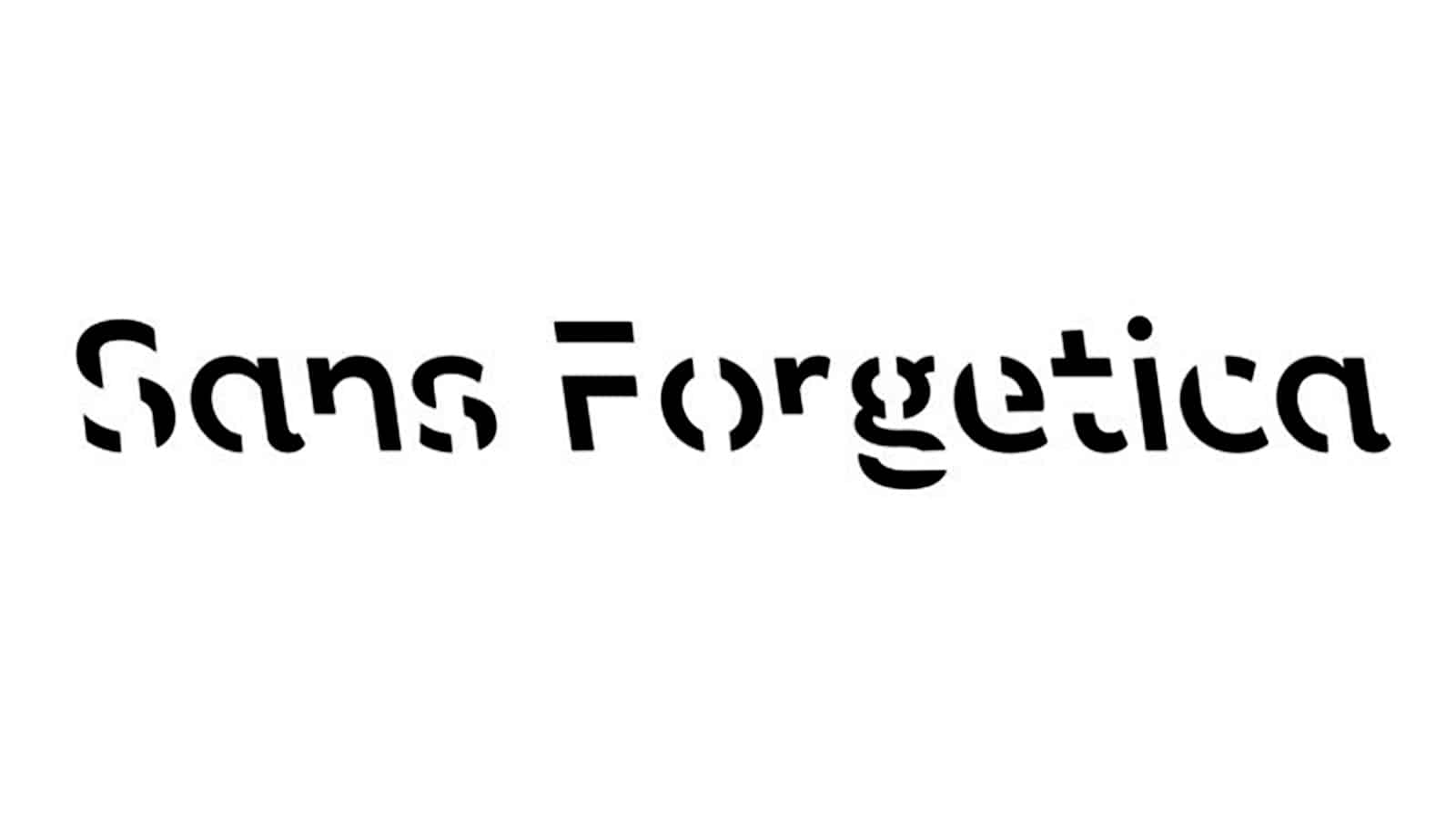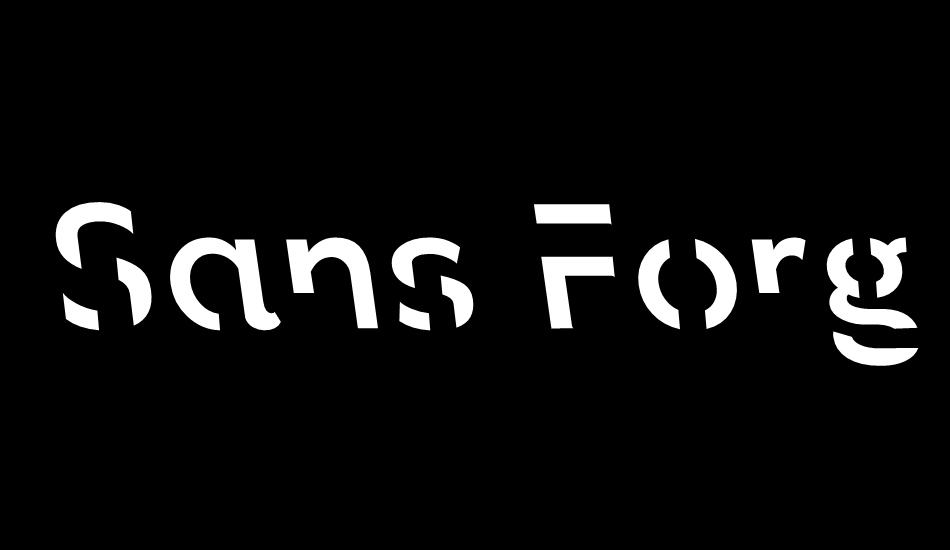
Sans Forgetica Font
Sans Forgetica Font - Sans forgetica is a font designed using the principles of cognitive psychology to help you to better remember your study notes. It was created by a multidisciplinary team of designers and. Web sans forgetica is a font designed using the principles of cognitive psychology to help you to better remember your study notes. Use responsibly reading an entire textbook in sans. It was created by a multidisciplinary team of designers and behavioural. Web sans forgetica is the typeface you won’t forget.
Web sans forgetica is a font designed using the principles of cognitive psychology to help you to better remember your study notes. Web sans forgetica is the typeface you won’t forget. It was created by a multidisciplinary team of designers and behavioural. Sans forgetica is a font designed using the principles of cognitive psychology to help you to better remember your study notes. Use responsibly reading an entire textbook in sans. It was created by a multidisciplinary team of designers and.
It was created by a multidisciplinary team of designers and. Use responsibly reading an entire textbook in sans. It was created by a multidisciplinary team of designers and behavioural. Web sans forgetica is the typeface you won’t forget. Web sans forgetica is a font designed using the principles of cognitive psychology to help you to better remember your study notes. Sans forgetica is a font designed using the principles of cognitive psychology to help you to better remember your study notes.
Web sans forgetica is a font designed using the principles of cognitive psychology to help you to better remember your study notes. It was created by a multidisciplinary team of designers and behavioural. It was created by a multidisciplinary team of designers and. Sans forgetica is a font designed using the principles of cognitive psychology to help you to better.
Web sans forgetica is a font designed using the principles of cognitive psychology to help you to better remember your study notes. Use responsibly reading an entire textbook in sans. It was created by a multidisciplinary team of designers and. Web sans forgetica is the typeface you won’t forget. Sans forgetica is a font designed using the principles of cognitive.
Web sans forgetica is the typeface you won’t forget. It was created by a multidisciplinary team of designers and. Use responsibly reading an entire textbook in sans. Web sans forgetica is a font designed using the principles of cognitive psychology to help you to better remember your study notes. It was created by a multidisciplinary team of designers and behavioural.
It was created by a multidisciplinary team of designers and behavioural. Sans forgetica is a font designed using the principles of cognitive psychology to help you to better remember your study notes. Web sans forgetica is the typeface you won’t forget. Use responsibly reading an entire textbook in sans. It was created by a multidisciplinary team of designers and.
It was created by a multidisciplinary team of designers and. Web sans forgetica is the typeface you won’t forget. Use responsibly reading an entire textbook in sans. Sans forgetica is a font designed using the principles of cognitive psychology to help you to better remember your study notes. It was created by a multidisciplinary team of designers and behavioural.
It was created by a multidisciplinary team of designers and. It was created by a multidisciplinary team of designers and behavioural. Use responsibly reading an entire textbook in sans. Sans forgetica is a font designed using the principles of cognitive psychology to help you to better remember your study notes. Web sans forgetica is the typeface you won’t forget.
It was created by a multidisciplinary team of designers and. Web sans forgetica is the typeface you won’t forget. It was created by a multidisciplinary team of designers and behavioural. Web sans forgetica is a font designed using the principles of cognitive psychology to help you to better remember your study notes. Sans forgetica is a font designed using the.
Use responsibly reading an entire textbook in sans. Sans forgetica is a font designed using the principles of cognitive psychology to help you to better remember your study notes. Web sans forgetica is a font designed using the principles of cognitive psychology to help you to better remember your study notes. It was created by a multidisciplinary team of designers.
Web sans forgetica is a font designed using the principles of cognitive psychology to help you to better remember your study notes. Sans forgetica is a font designed using the principles of cognitive psychology to help you to better remember your study notes. Use responsibly reading an entire textbook in sans. Web sans forgetica is the typeface you won’t forget..
Web Sans Forgetica Is A Font Designed Using The Principles Of Cognitive Psychology To Help You To Better Remember Your Study Notes.
It was created by a multidisciplinary team of designers and behavioural. Sans forgetica is a font designed using the principles of cognitive psychology to help you to better remember your study notes. Web sans forgetica is the typeface you won’t forget. It was created by a multidisciplinary team of designers and.